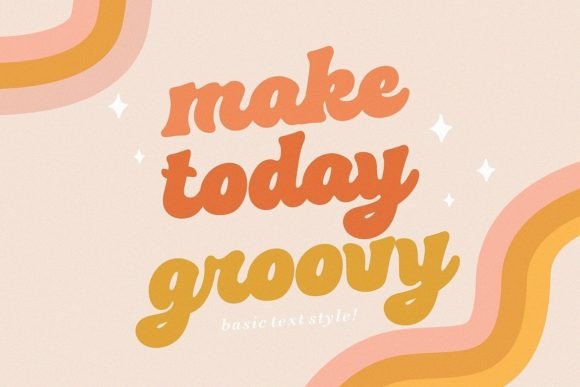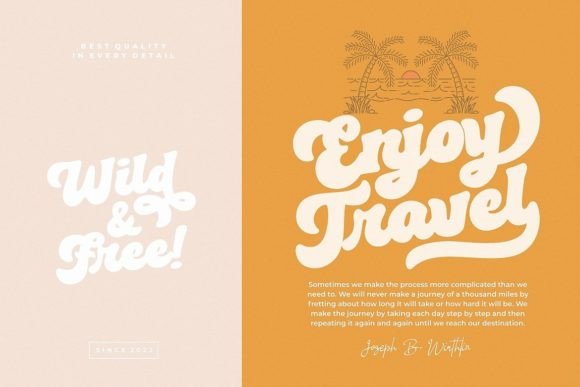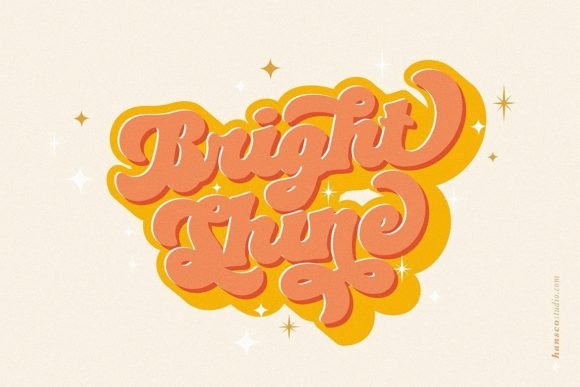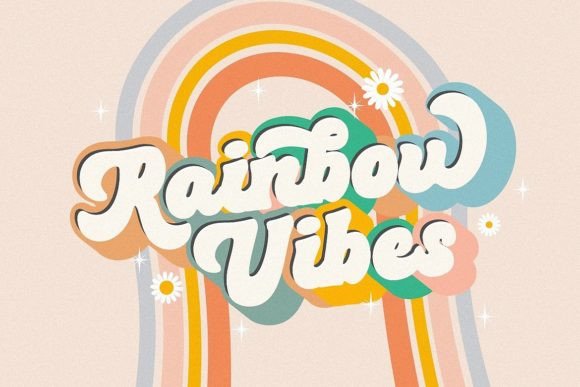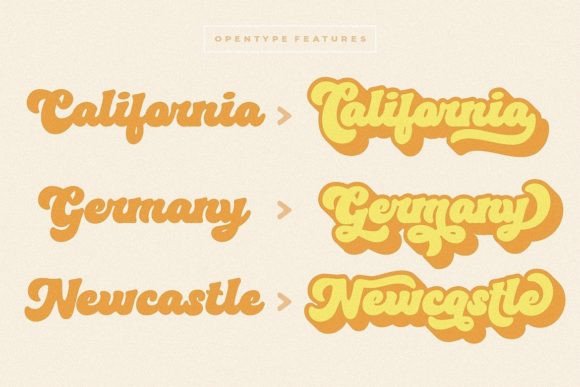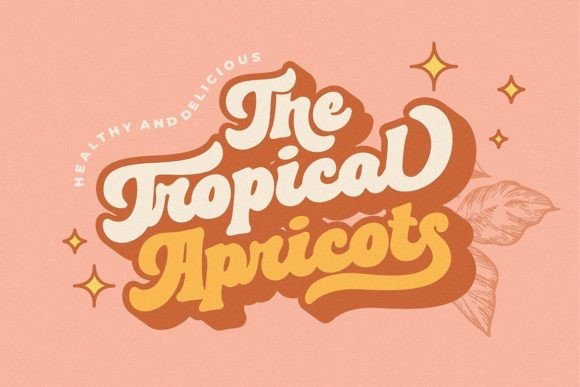
Introducing Happy Monday Font: The Ultimate Retro Display Font for Creative Projects
Are you tired of using the same old fonts for your design projects? Do you want to add a touch of retro flair to your creations? Look no further than the Happy Monday Font! This bold and eye-catching display font is perfect for designers and crafters who want to take their projects to the next level.
What is Happy Monday Font?
Happy Monday Font is a retro-style display font that is designed to bring a fun and playful vibe to any design project. Its bold and chunky letters are reminiscent of classic retro fonts, but with a modern twist that makes it perfect for contemporary designs. Whether you’re working on a logo, a poster, or a social media graphic, Happy Monday Font is sure to make your project stand out.
Features of Happy Monday Font
So, what makes Happy Monday Font so special? Here are just a few of its key features:
- Retro-style: Happy Monday Font has a classic retro look that’s perfect for designers who want to add a touch of nostalgia to their projects.
- Bold and chunky: The font’s bold and chunky letters make it perfect for headlines, titles, and other applications where you want to make a big impact.
- Highly versatile: Happy Monday Font can be used for a wide range of design projects, from logos and branding to posters, social media graphics, and more.
- Easily readable: Despite its bold and chunky design, Happy Monday Font is still highly readable, even at smaller sizes.
Use Cases for Happy Monday Font
So, what kinds of projects is Happy Monday Font best suited for? Here are just a few ideas to get you started:
- Logos and branding: Happy Monday Font is perfect for creating bold and eye-catching logos that will help your brand stand out.
- Posters and flyers: The font’s bold and chunky design makes it perfect for creating eye-catching posters and flyers that will grab people’s attention.
- Social media graphics: Happy Monday Font is a great choice for social media graphics, including Instagram and Facebook posts, Twitter headers, and more.
- T-shirts and apparel: The font’s bold and playful design makes it perfect for use on t-shirts, hoodies, and other apparel.
- Stickers and packaging: Happy Monday Font is also a great choice for stickers, labels, and packaging design.
- Cricut projects: If you’re a Cricut user, you’ll love Happy Monday Font, which can be used to create custom vinyl decals, iron-on designs, and more.
Why Choose Happy Monday Font?
So, why should you choose Happy Monday Font for your next design project? Here are just a few reasons:
- Unique and eye-catching: Happy Monday Font is a truly unique and eye-catching font that will help your project stand out from the crowd.
- High-quality design: The font has been masterfully designed to ensure that it looks great in any context.
- Versatile: The font can be used for a wide range of design projects, making it a great addition to any designer’s toolkit.
If you’re looking for a bold and eye-catching font that will add a touch of retro flair to your design projects, look no further than Happy Monday Font. With its unique and highly versatile design, this font is perfect for designers and crafters who want to take their projects to the next level. So why wait? Download Happy Monday Font today and start creating!